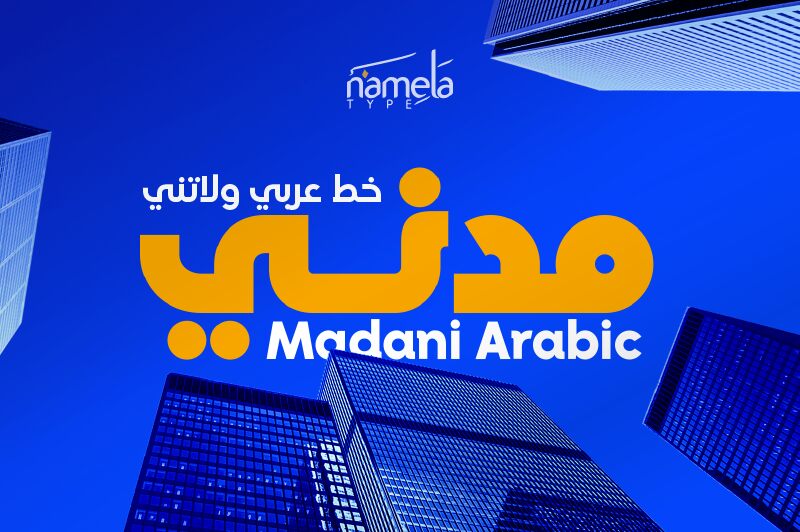
Madani font family by Namela Type is a geometric sans serif collection that consist of 4 font styles. The font family is modern and clean, and its characters are minimalistic for a professional effect, a combination that gives the font its strong presence and versatile applications. Madani was designed for clarity and power, and these can be instantly noticed with each and every letter.
So bring out your best work with headers, sub-headers, body content, and small texts, and use the different effects it shares for branding and corporate identity projects, tech-oriented businesses, books, and magazines.